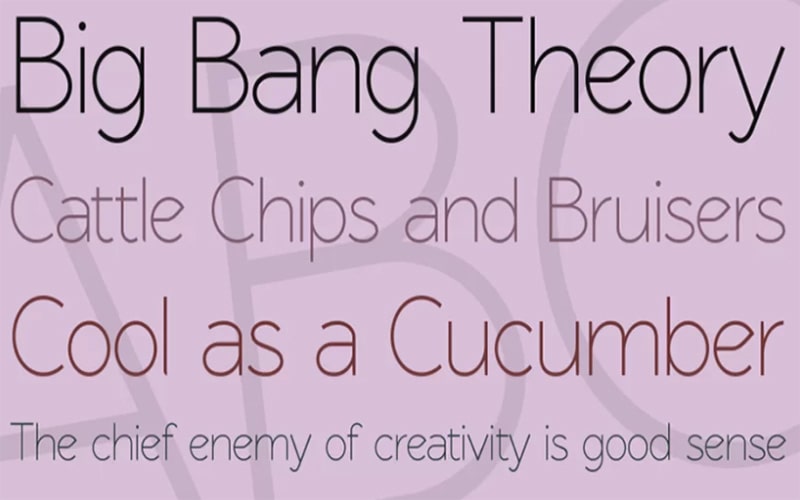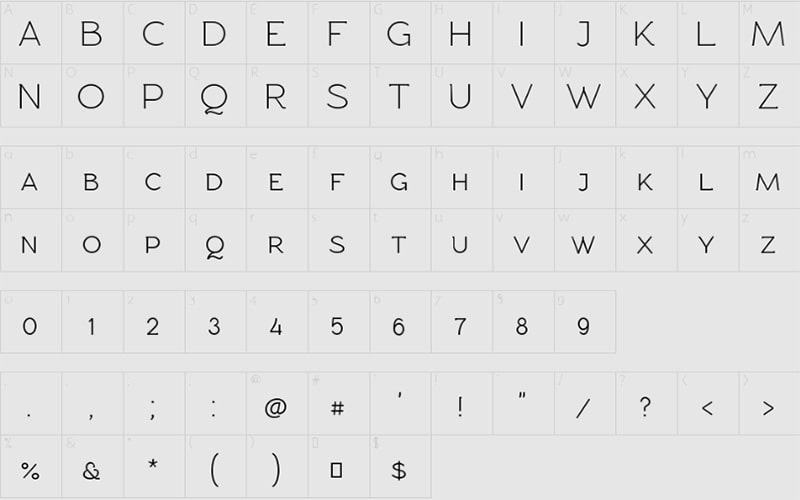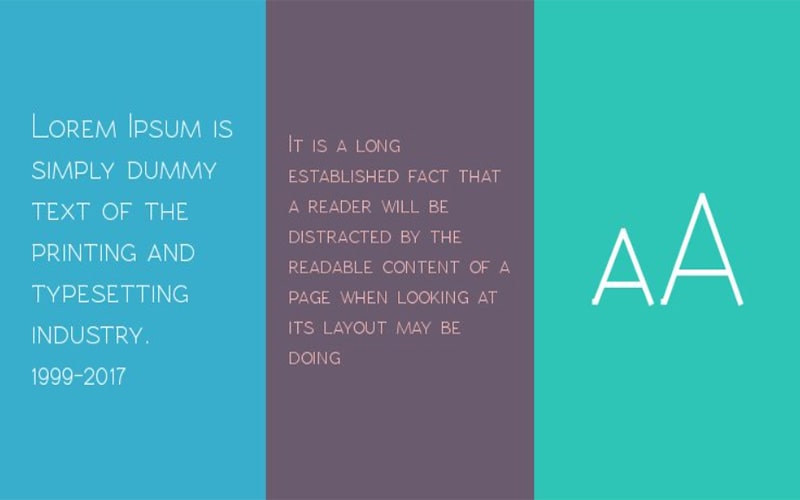
Rawengulk font is a Basic, Sans serif typeface. It looks delicate and more glorious because of its beautiful lettering, small caps, and crazy letters.
Gulk Fonty took charge of designing this beautiful typeface. This versatile font was uploaded on September 6, 2018. After modifications, it was updated on July 25, 2019.
The subfamily of this font is Bold. A delighted font contains different font styles that make it prominent all over the world.
Styles are such as “Rawengulk Regular”, “Rawengulk Light”, “Rawengulk Ultralight”, “Rawengulk Demibold” “Rawengulk Bold”, “Rawengulk Prtitecaps”, and vice versa.
Rawengulk Font
An aesthetic font is perfectly designed for different stylish purposes such as graphical projects, product packaging, exciting designs, houseware designs, and more.
It supports multiple international languages including English, Urdu, and Zulu. This well-favored dynamite font is an excellent idea to increase the prominence of your projects.
This alluring free version font is available in all lowercase and uppercase letters, all caps, and some special characters. Let’s take a single look at its texture.